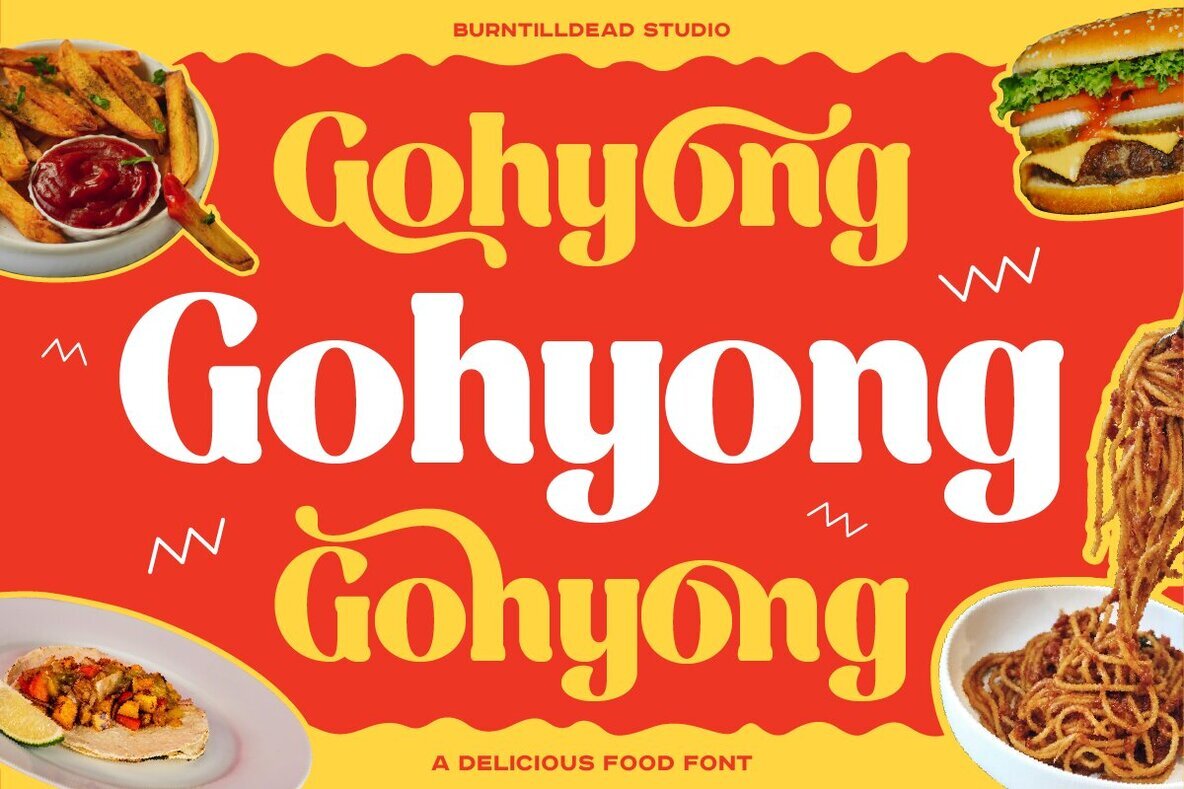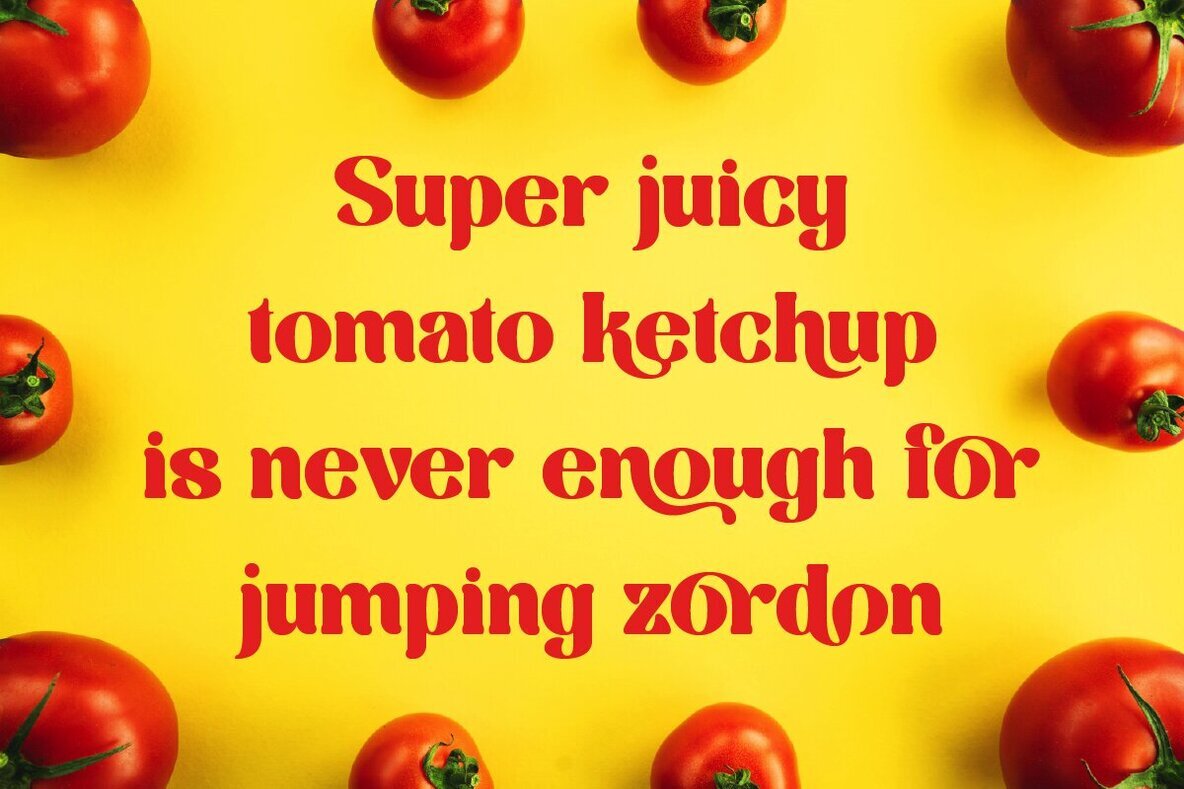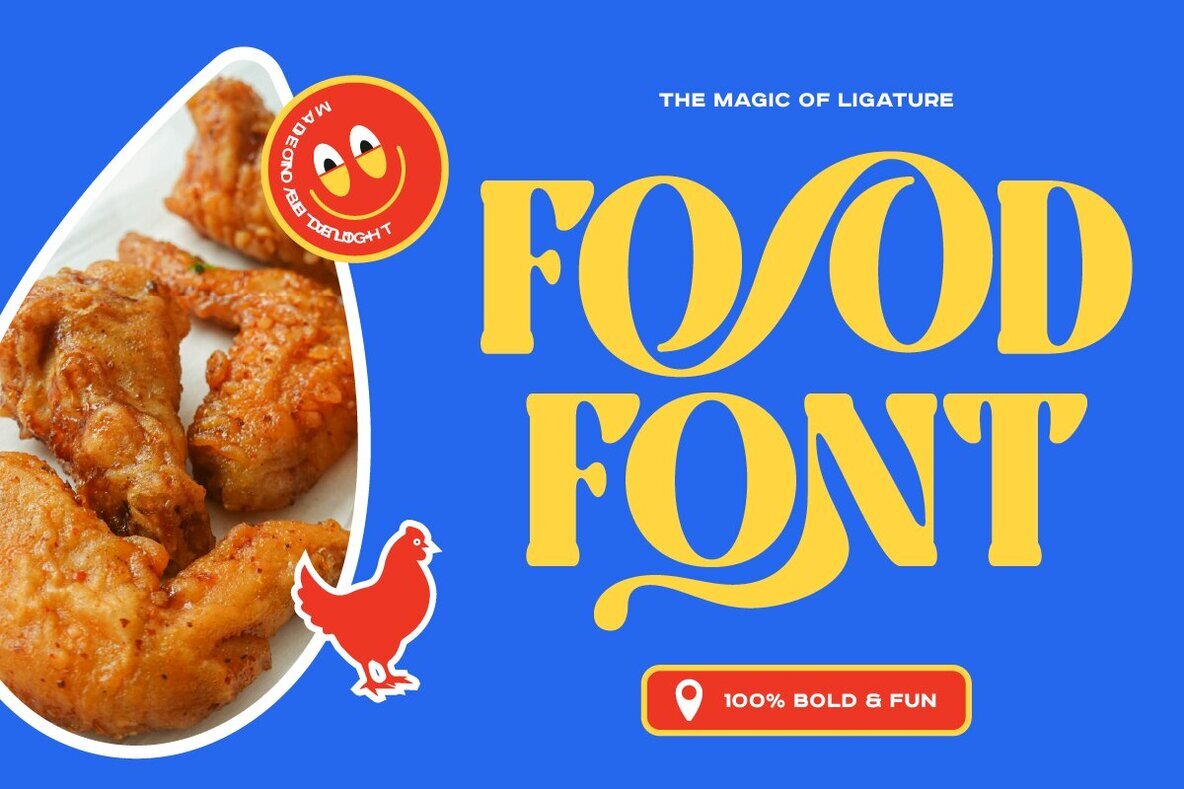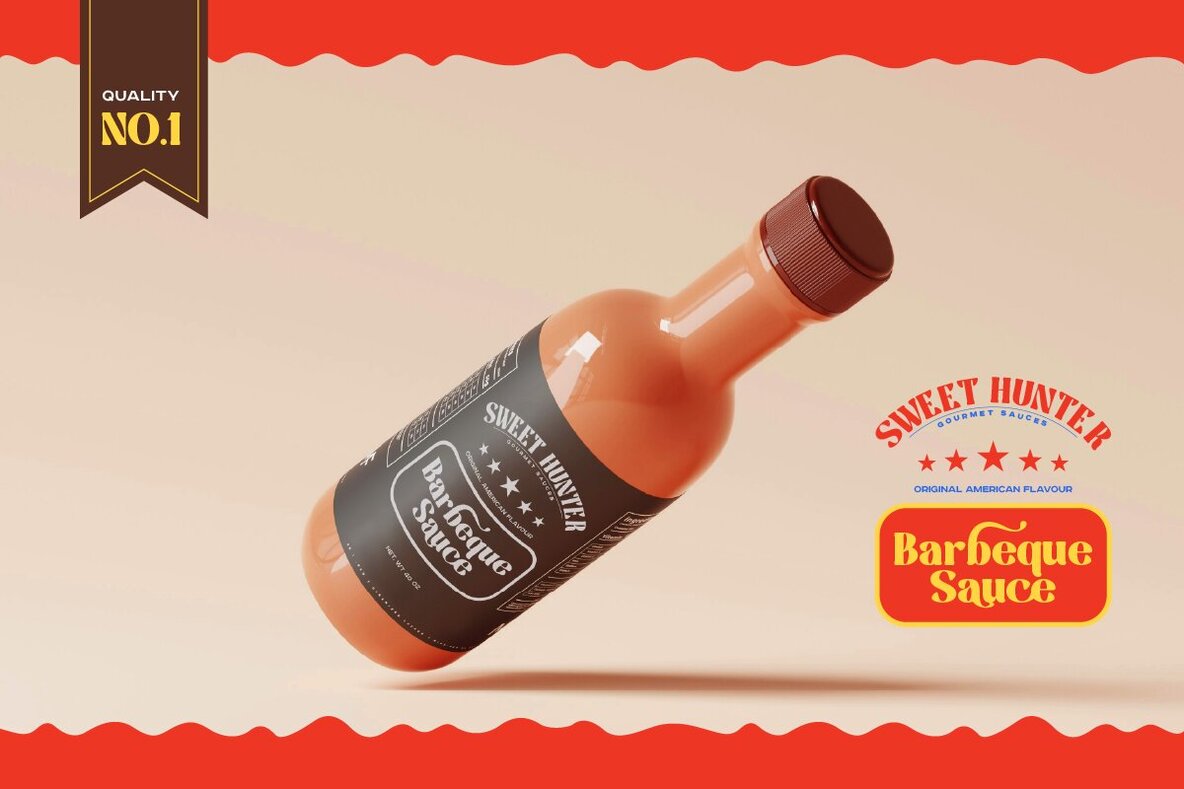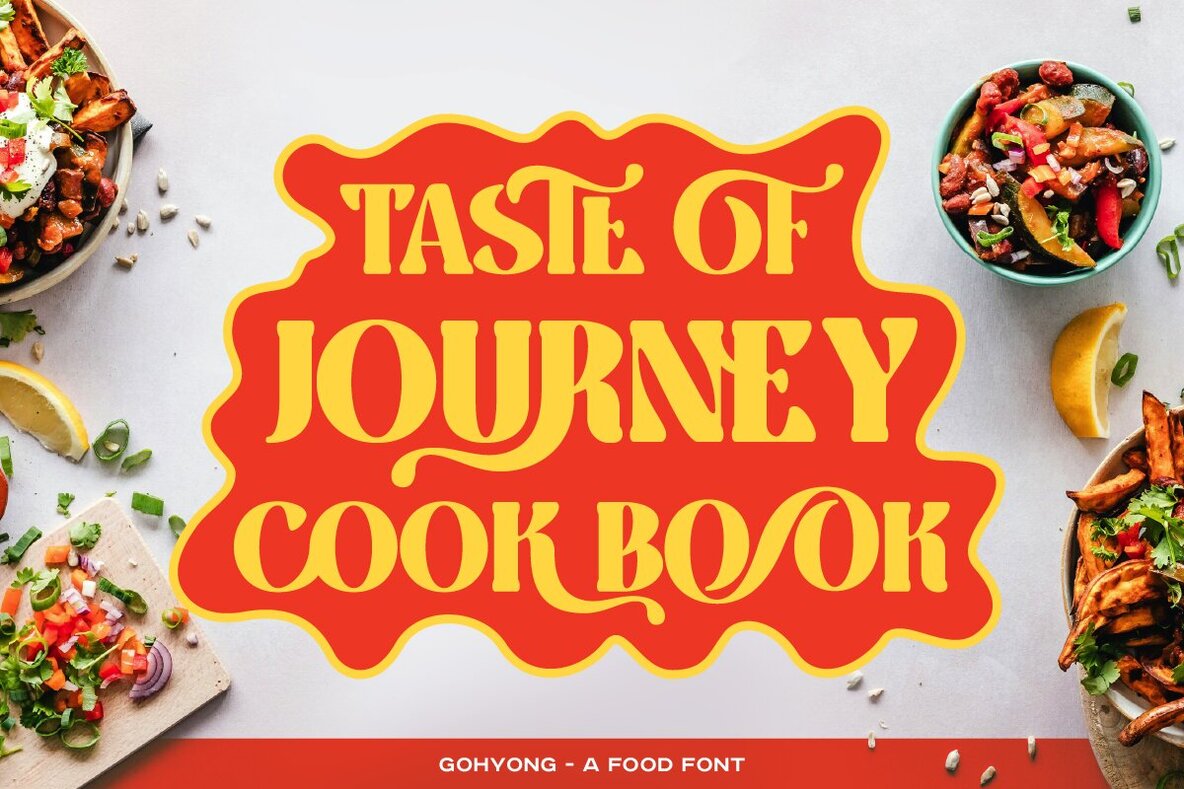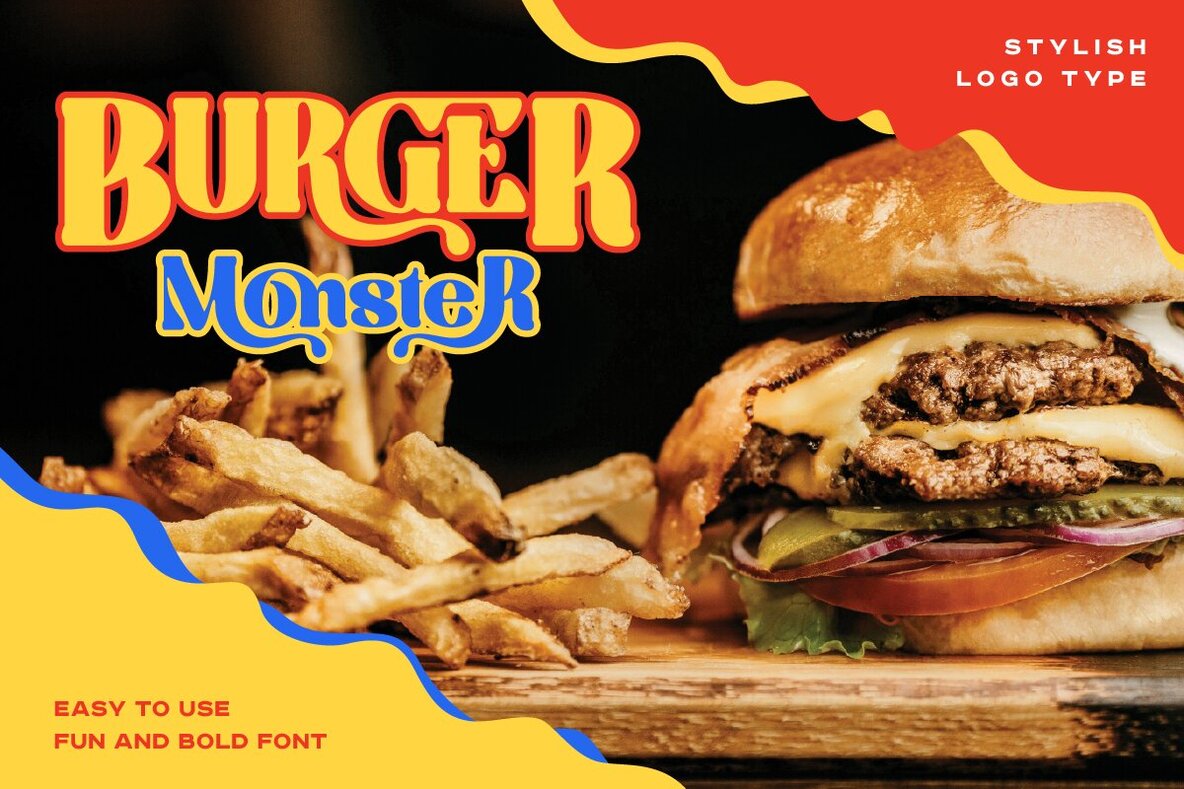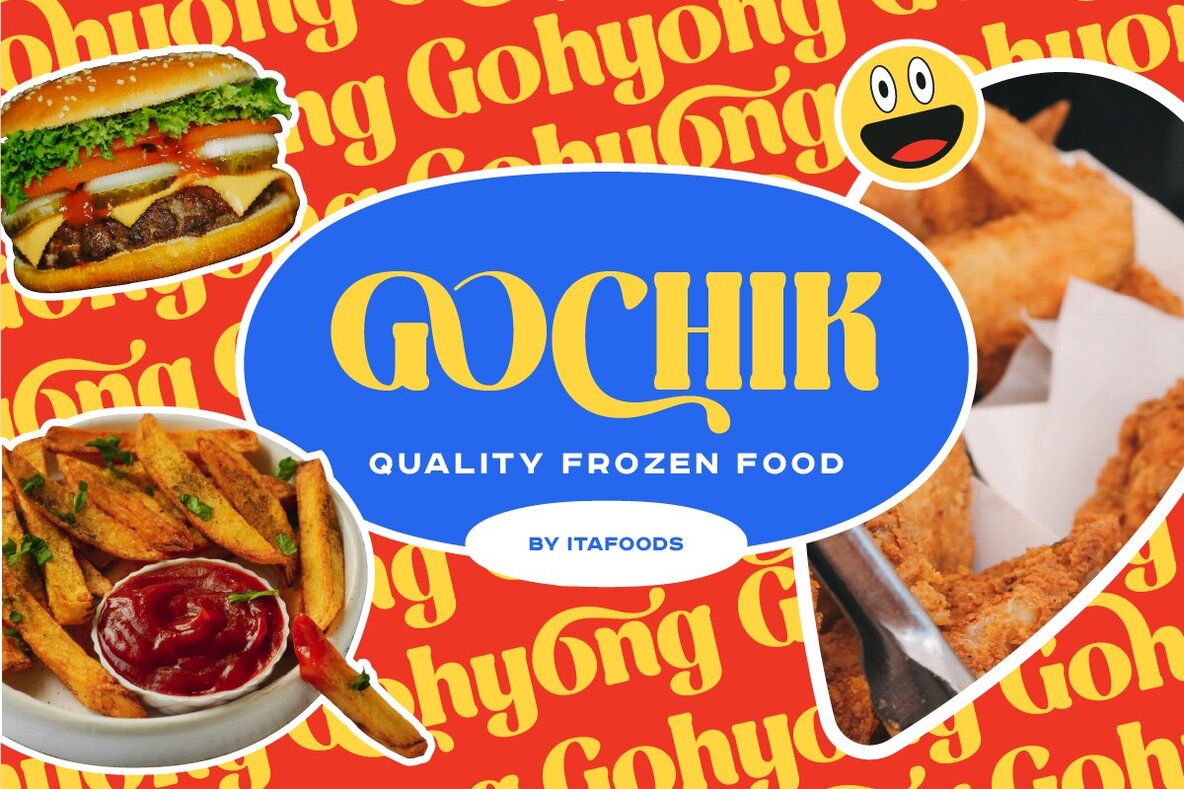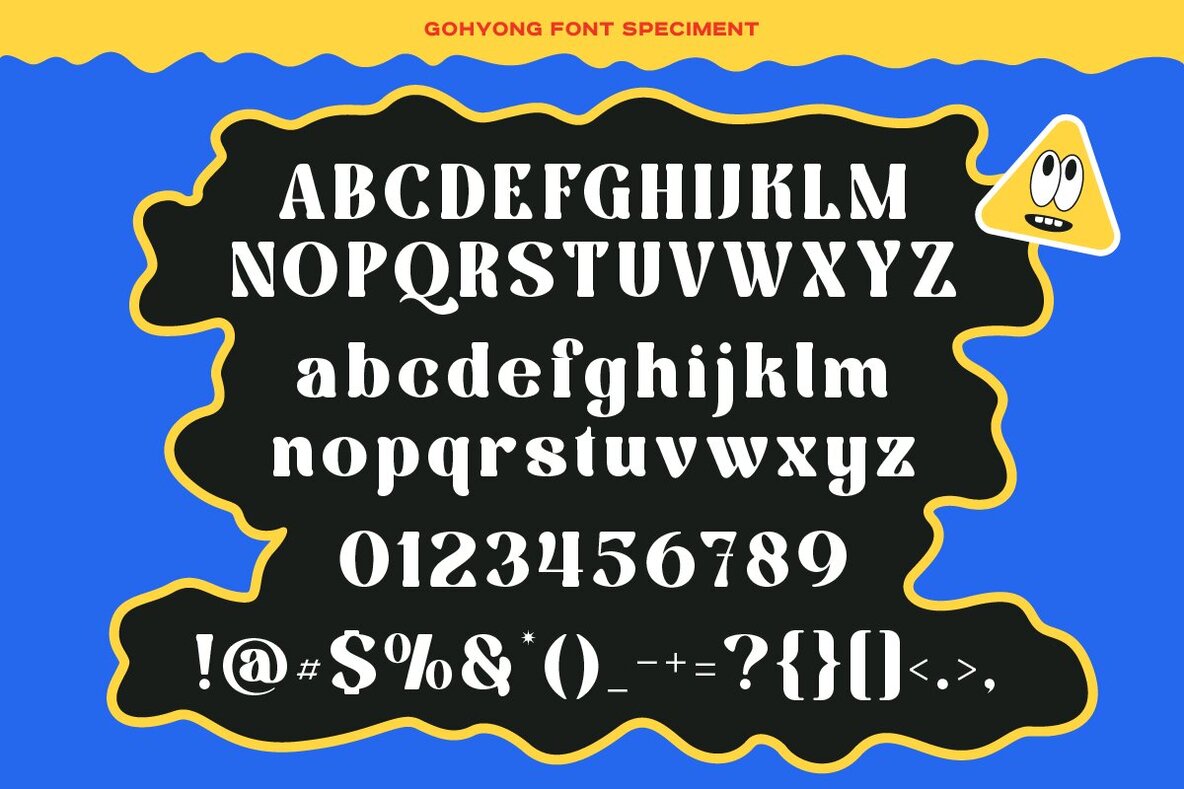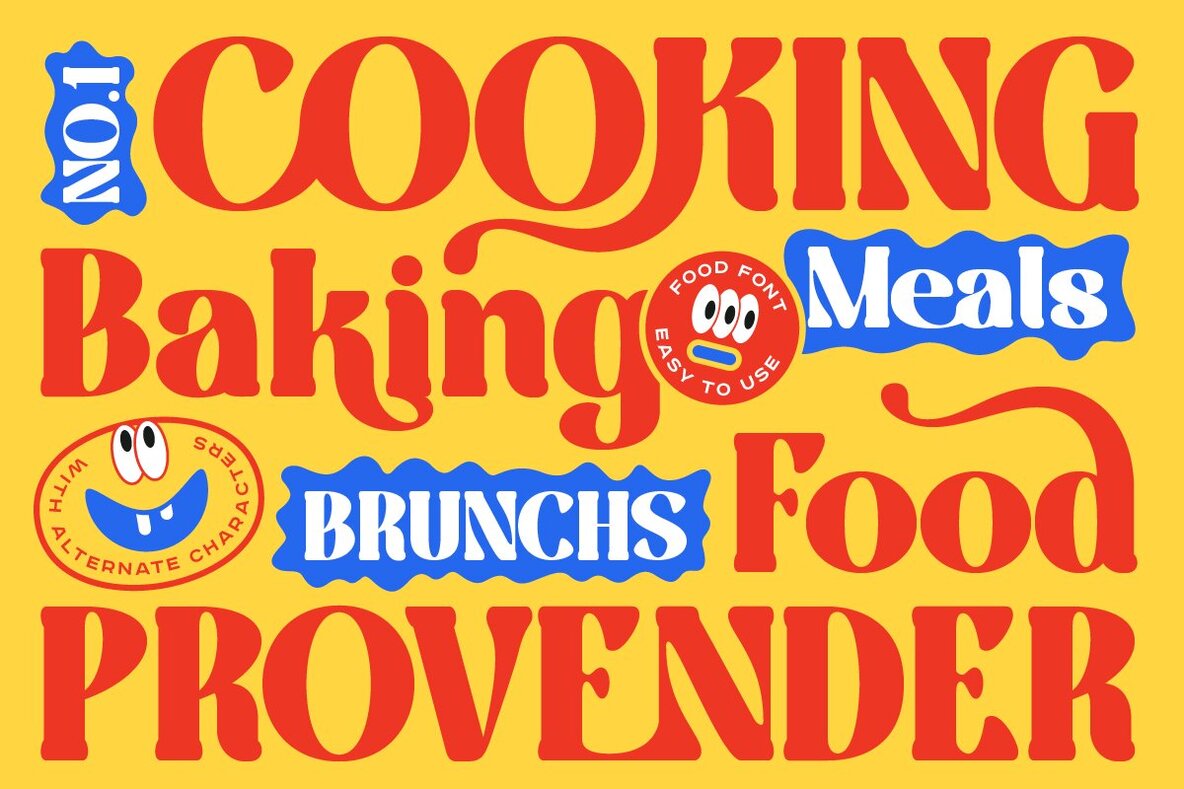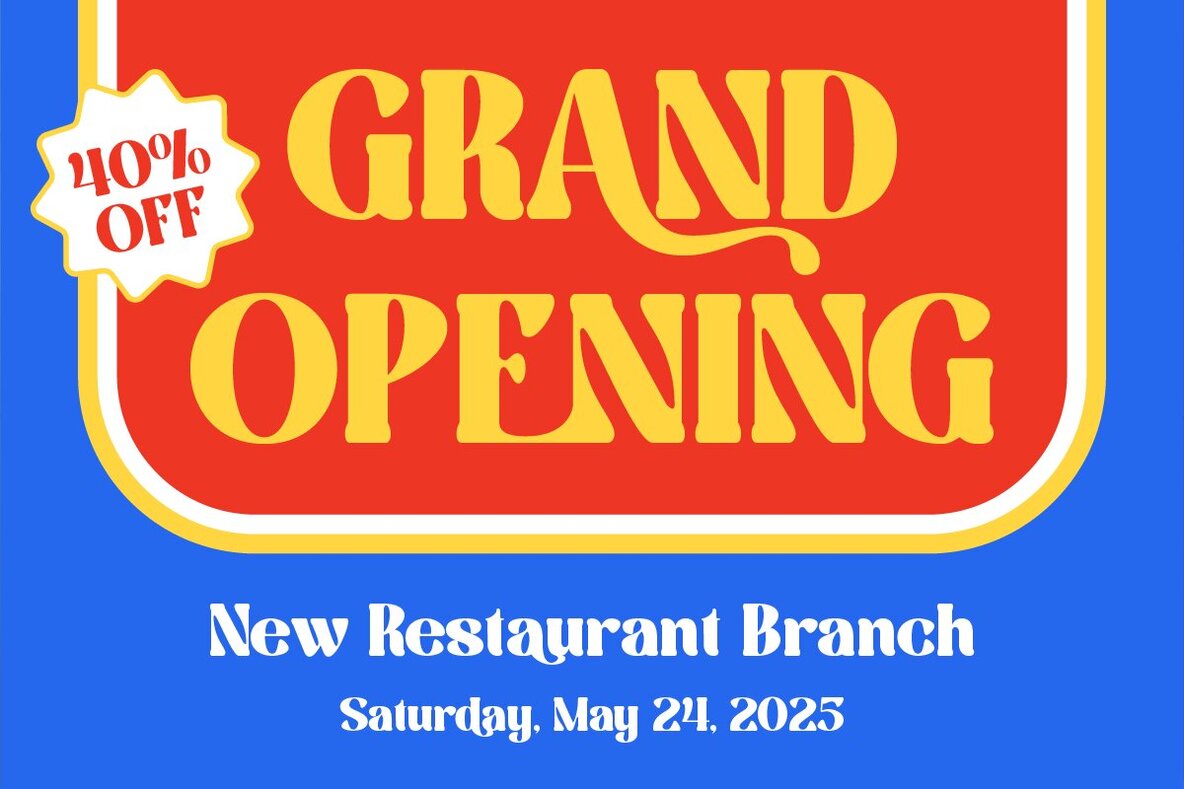
Gohyong Font
Gohyong Regular
Gohyong Oblique
Gohyong is a vibrant and bold font that blends modern design elements with a classic touch, making it an ideal choice for graphic and digital designers seeking a fresh look. With its clean and sophisticated typography, Gohyong is engineered to elevate your projects, whether they involve branding, logo creation, or editorial work. The font's versatility extends to various applications, including poster designs, banners, web pages, social media graphics, and restaurant menus.
Designed to enhance creative confidence and style, Gohyong comes with a variety of features. It includes a full set of uppercase and lowercase letters, numbers, and punctuation marks, along with alternate characters and ligatures for additional versatility. Further enhancing its usability, Gohyong provides multilingual support, making it suitable for a global audience. With the Funjoy Characters Map, designers have quick access to unique typographic options that can heighten any project.